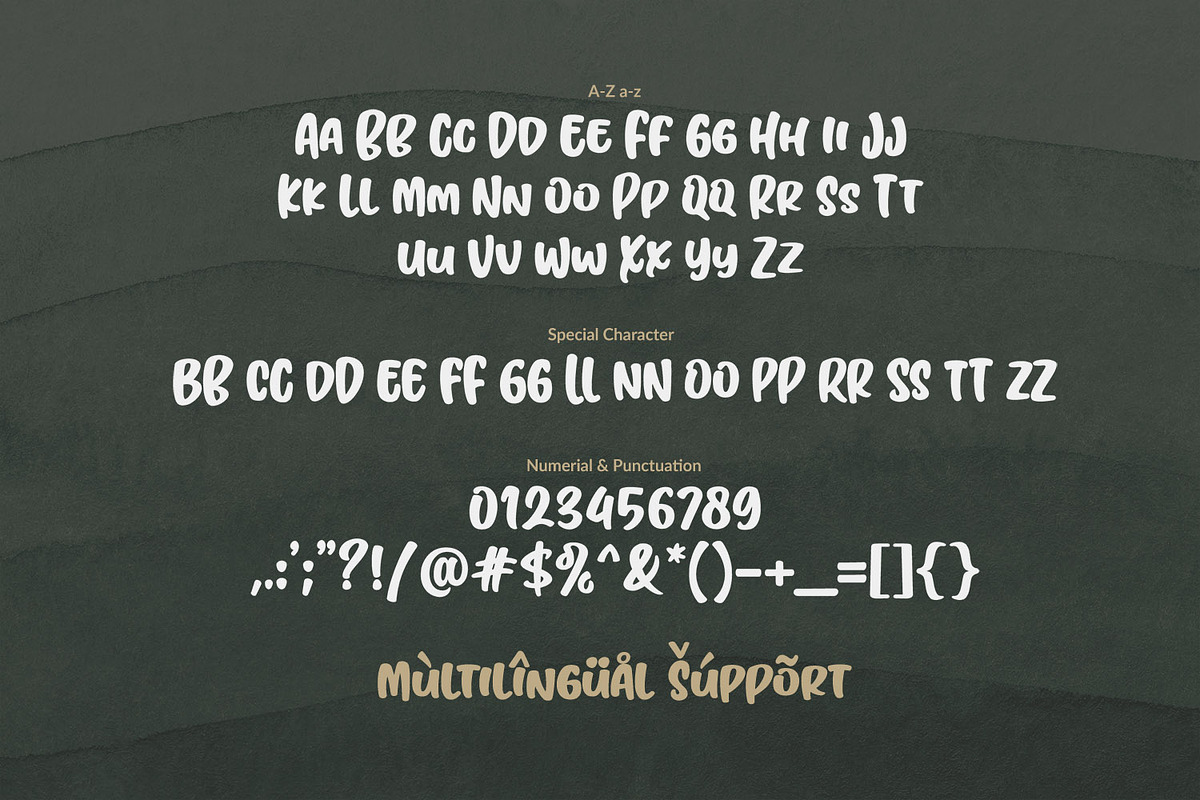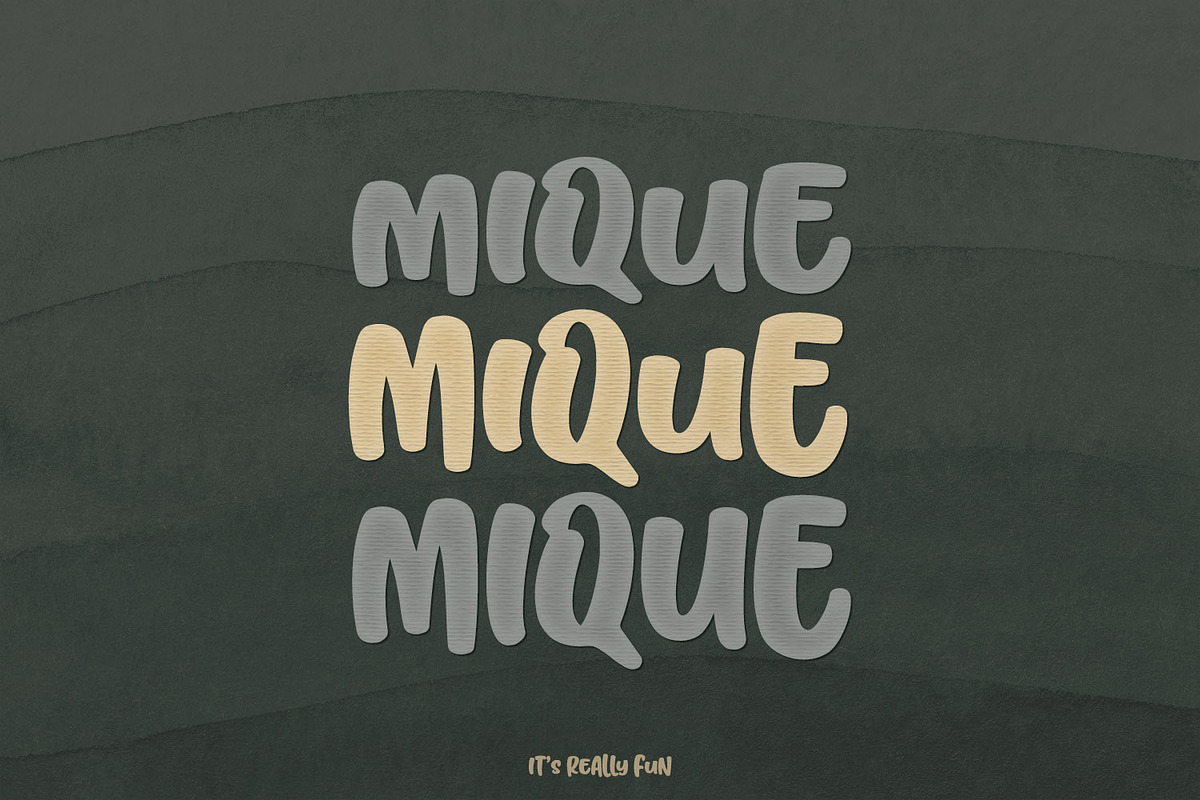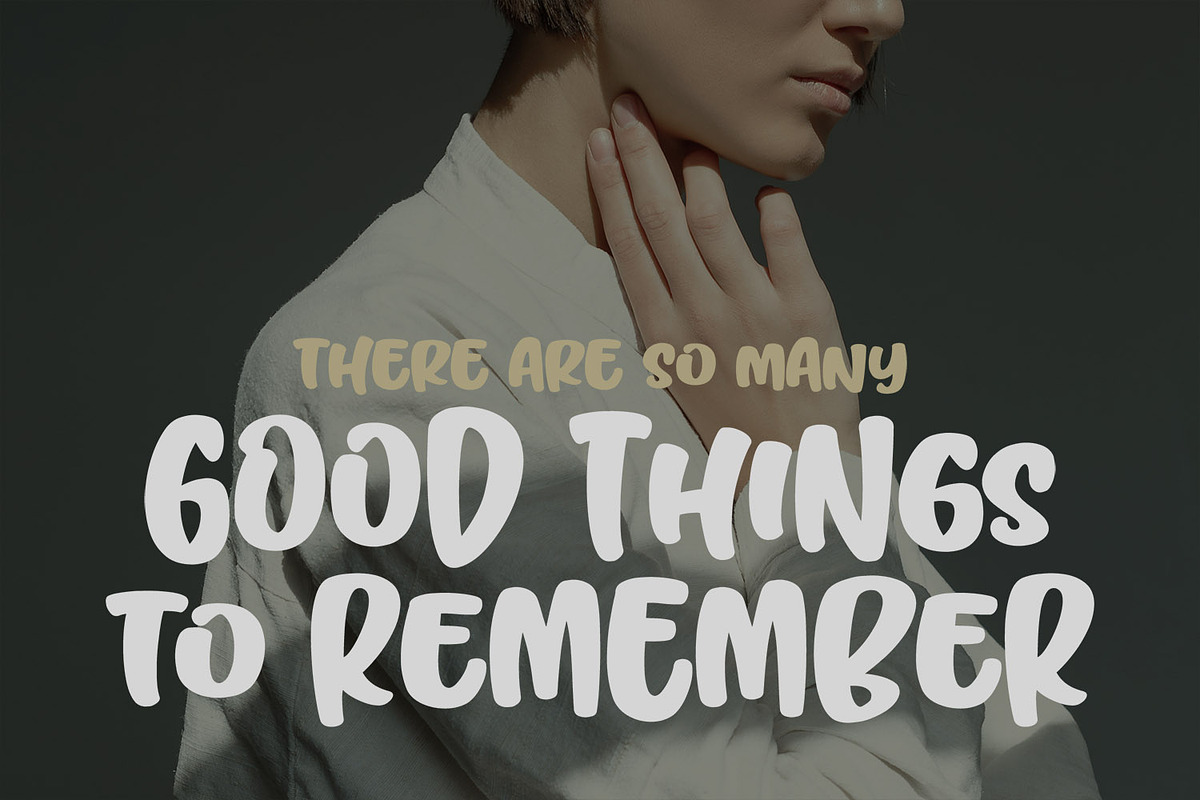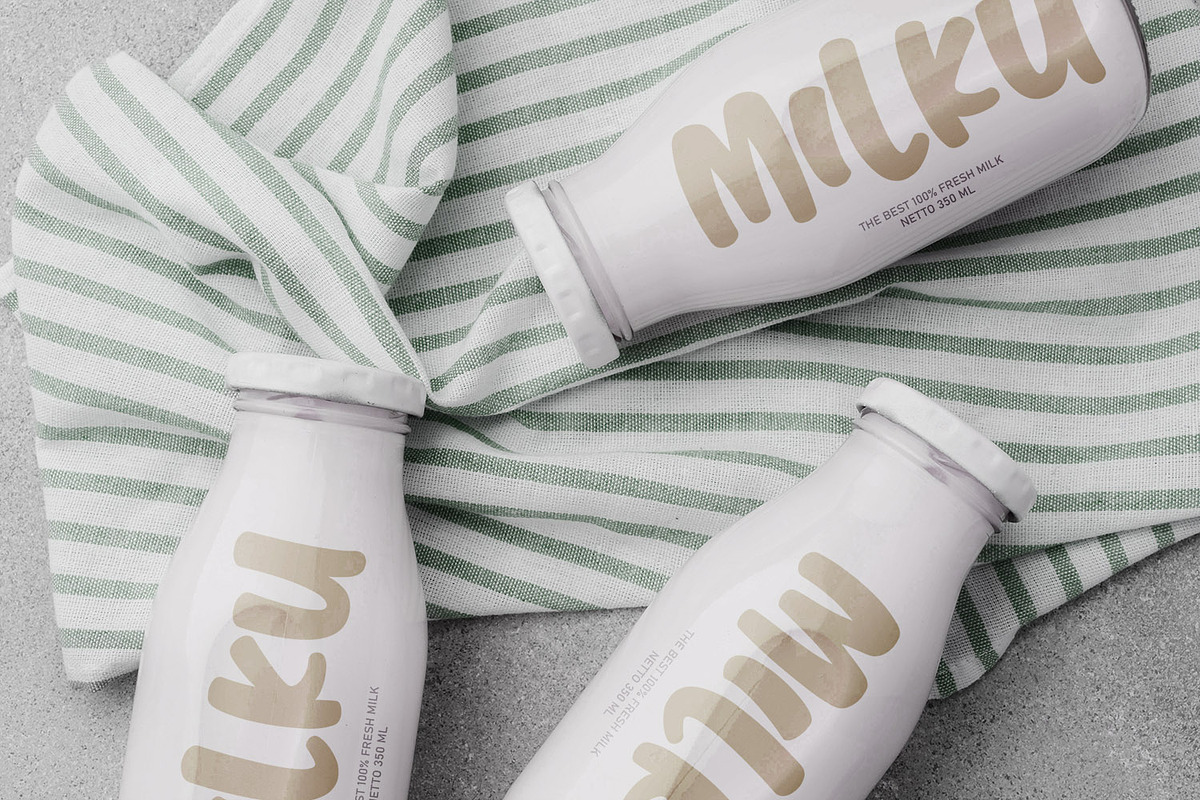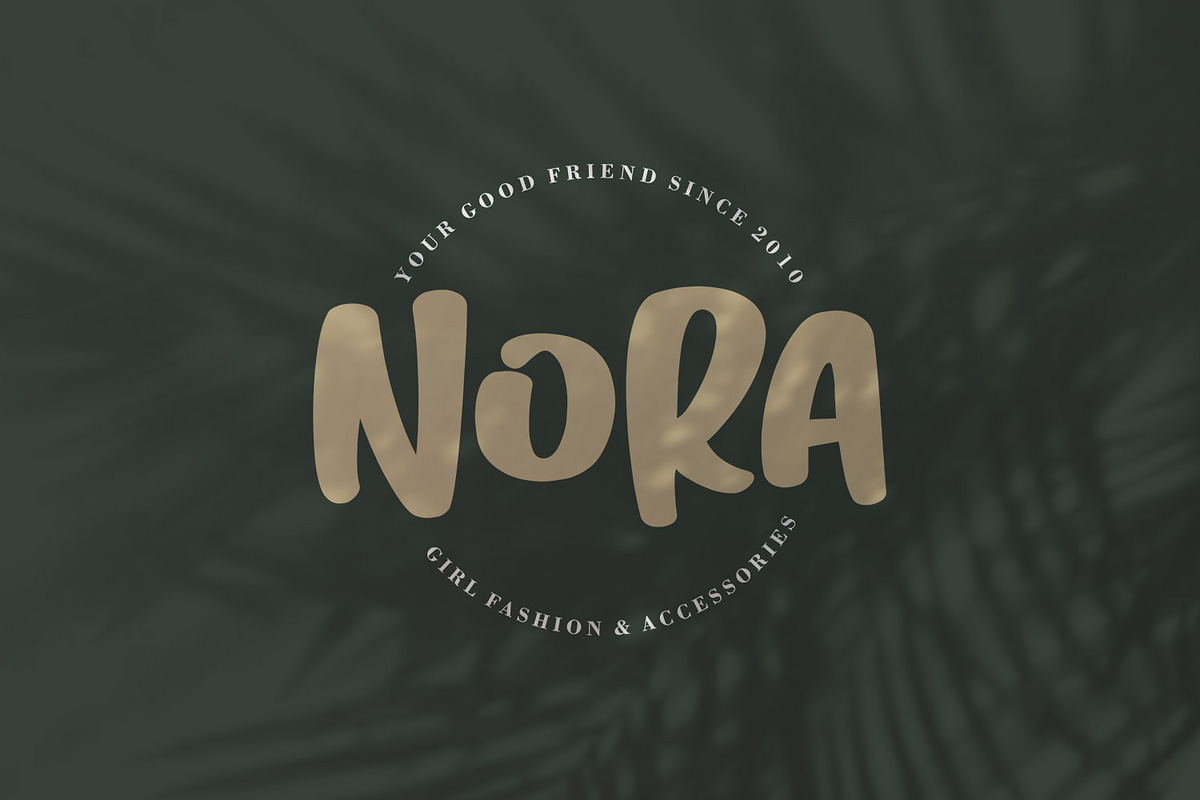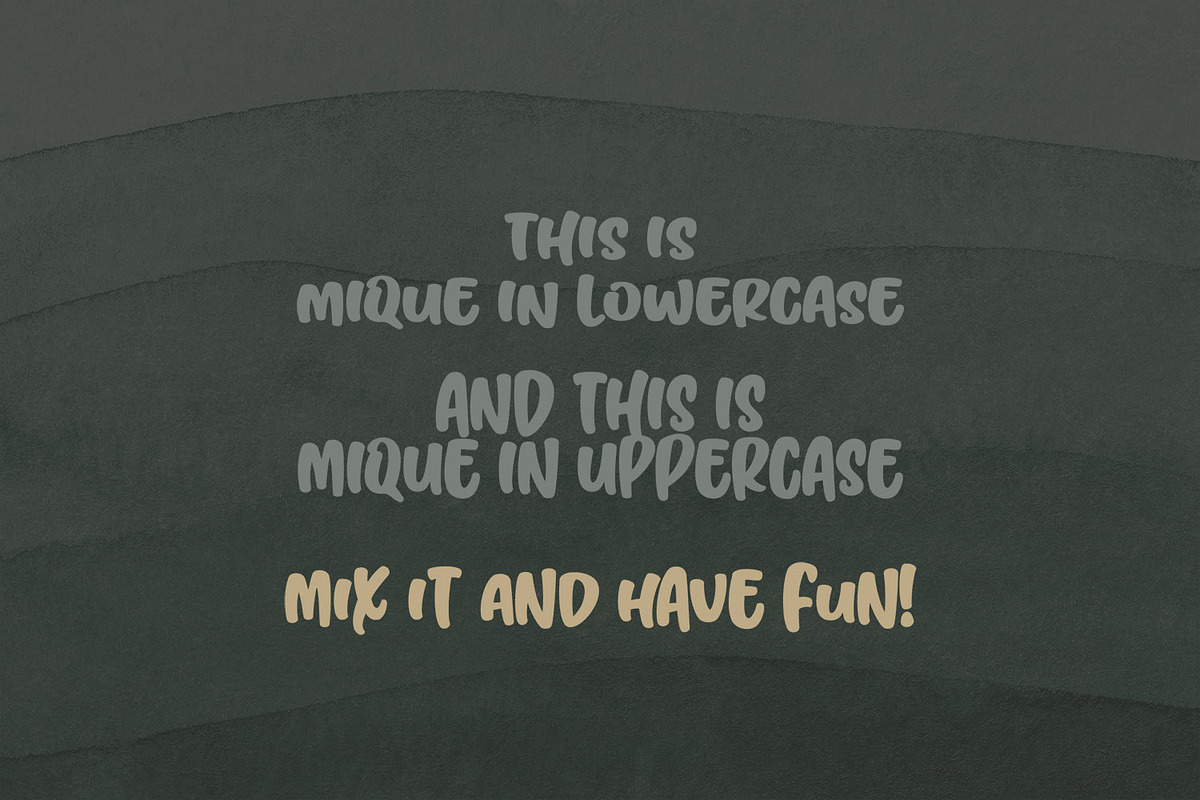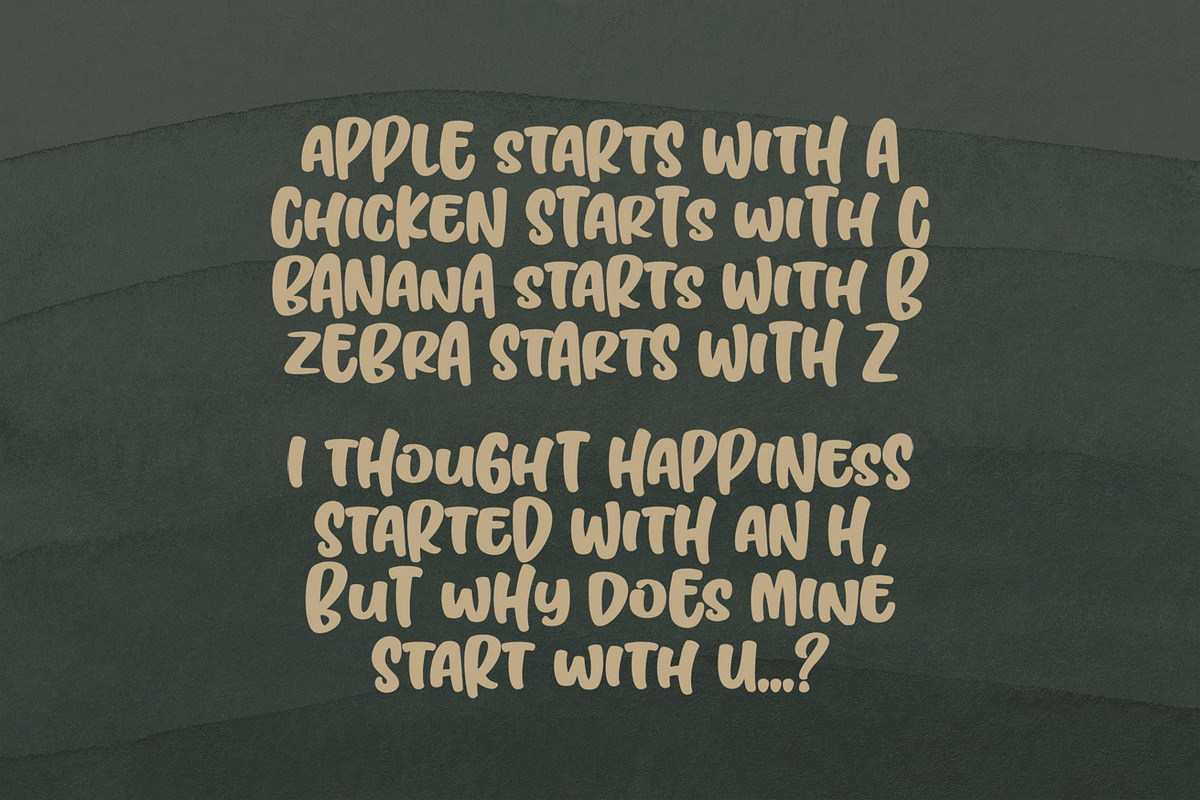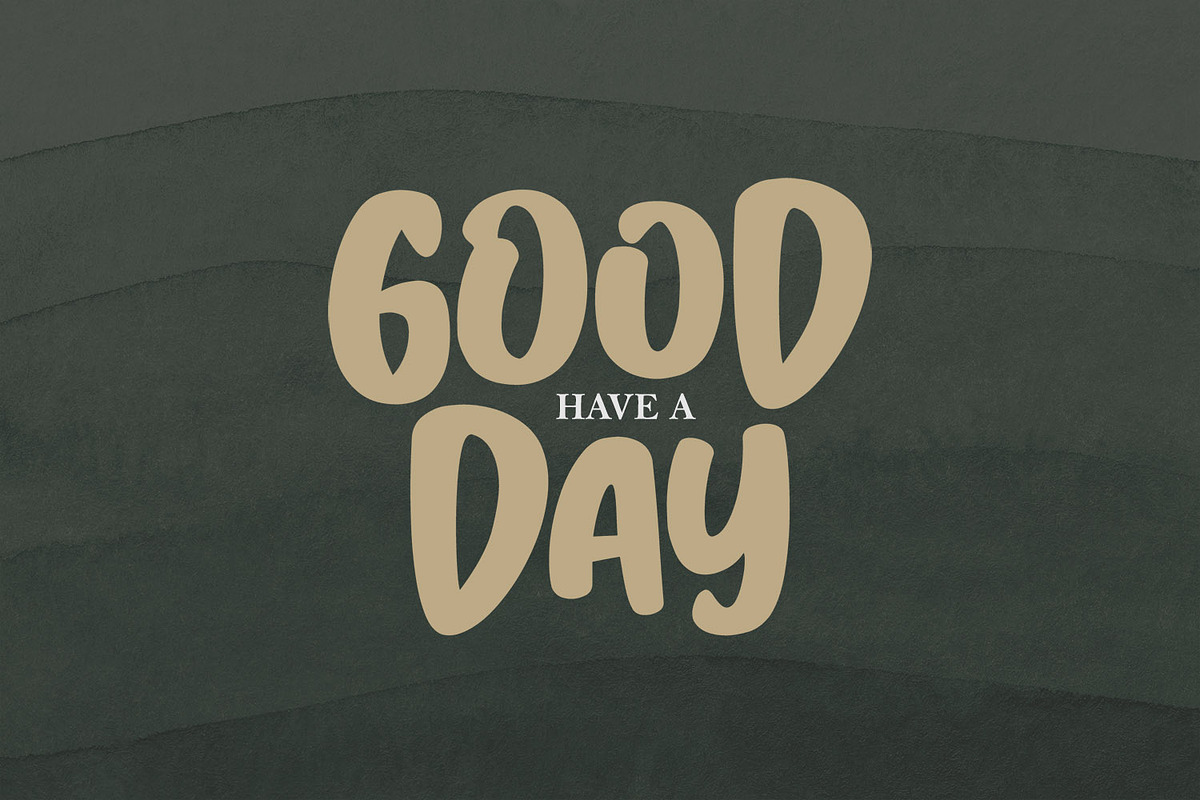
Mique
Mique is a chunky lettered, sweet display font. It will add an incredibly joyful touch to your designs. Add it to each of your creative ideas and notice how it makes them stand out!